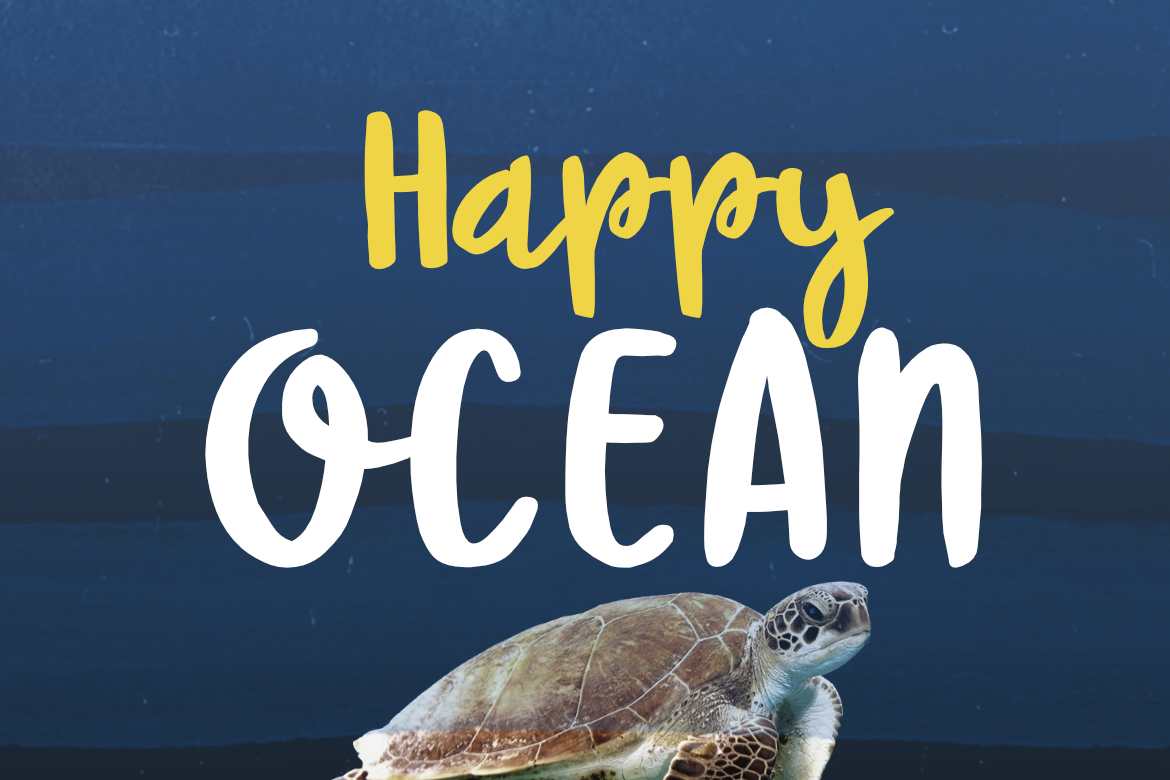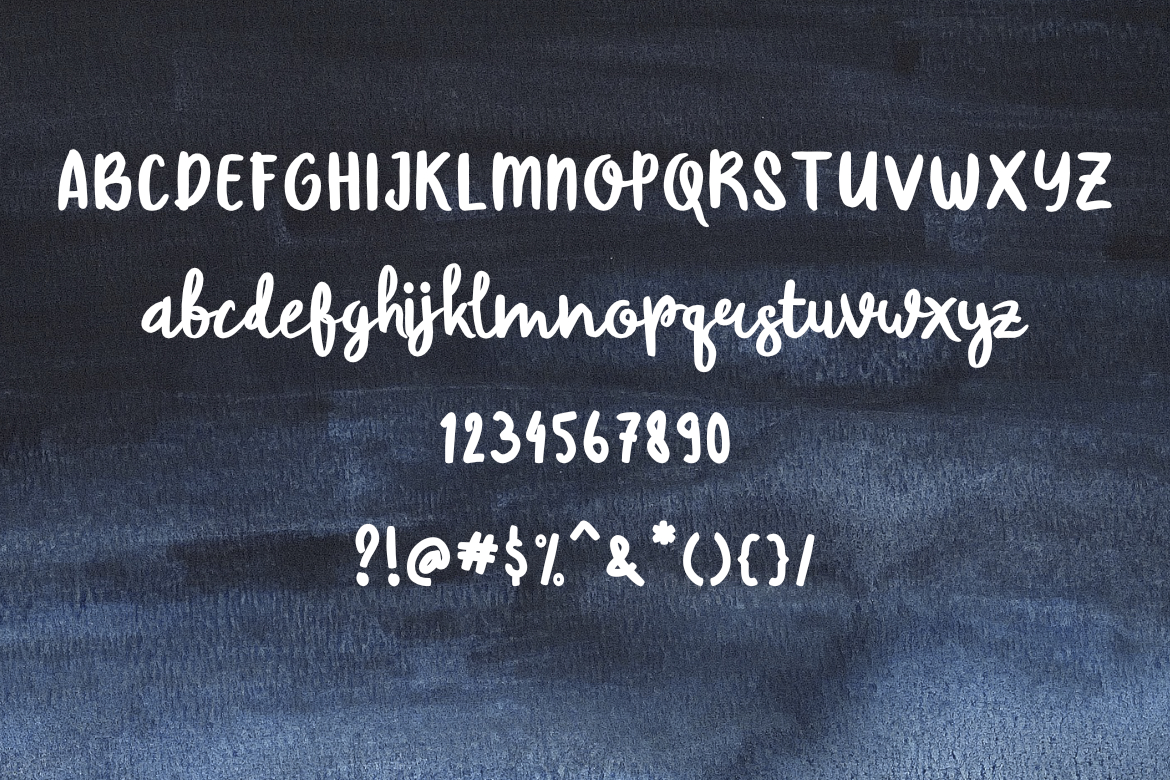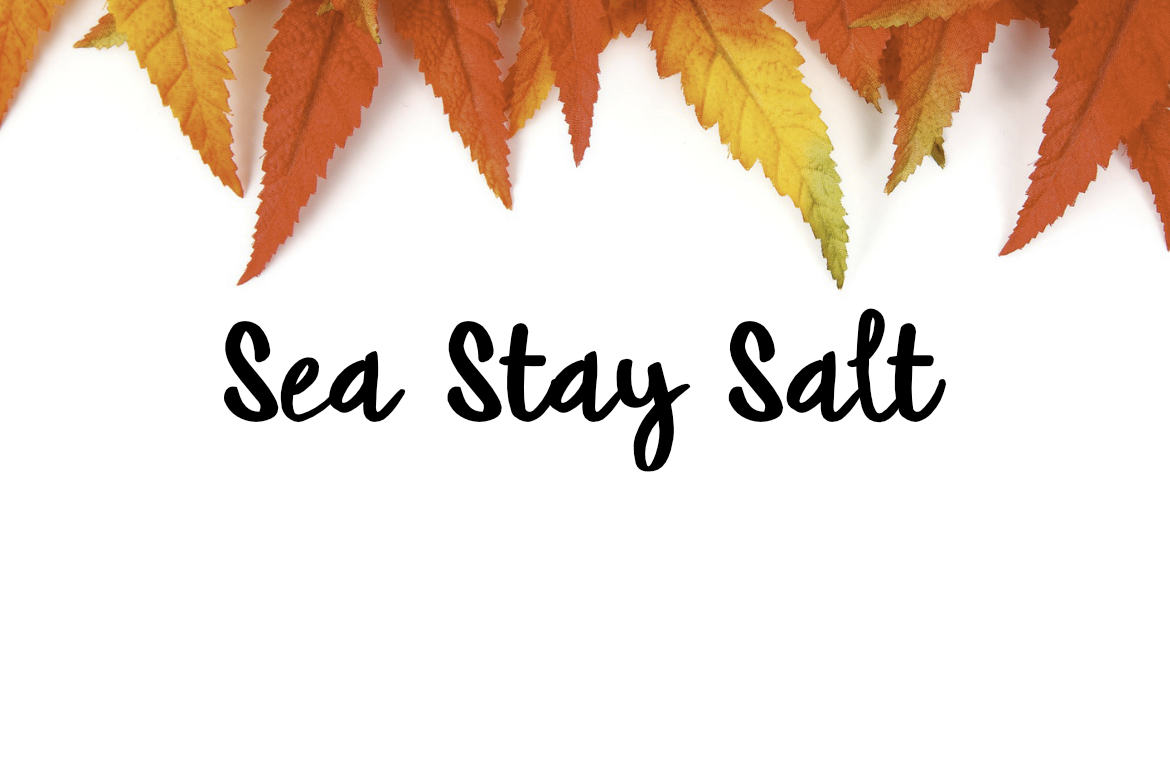
Happy Ocean Font
About Happy Ocean Font
Happy Ocean is a genial and well styled font, with perfect weight and design. Friendly and handwritten, Happy Ocean is a great option for headline or display fonts.